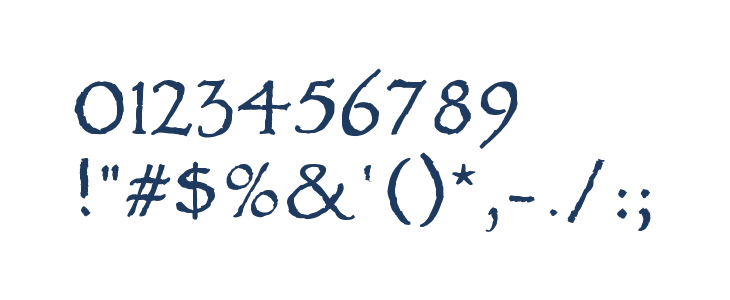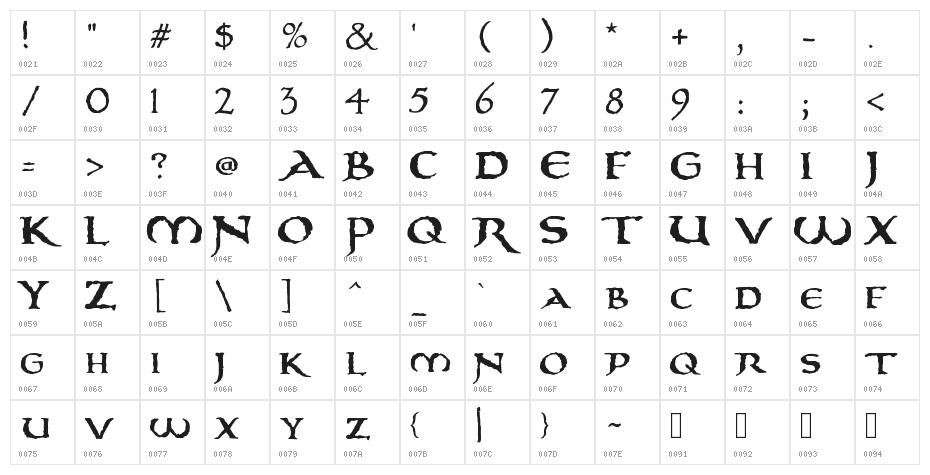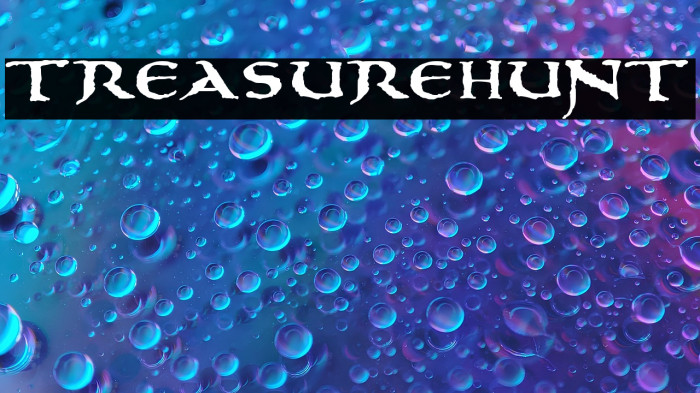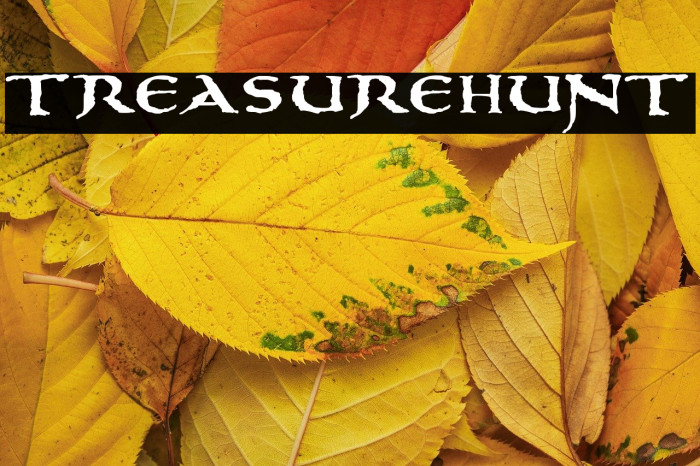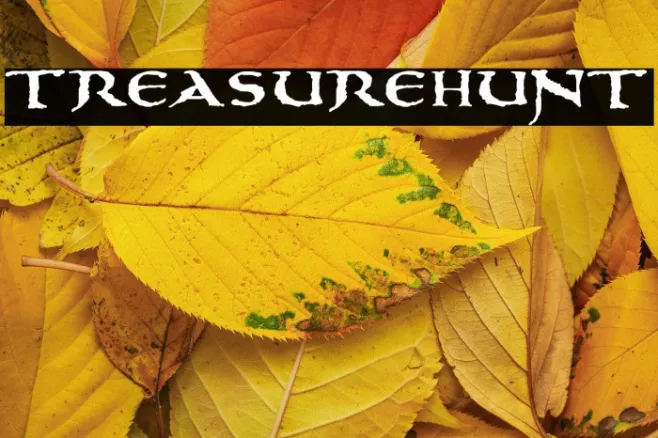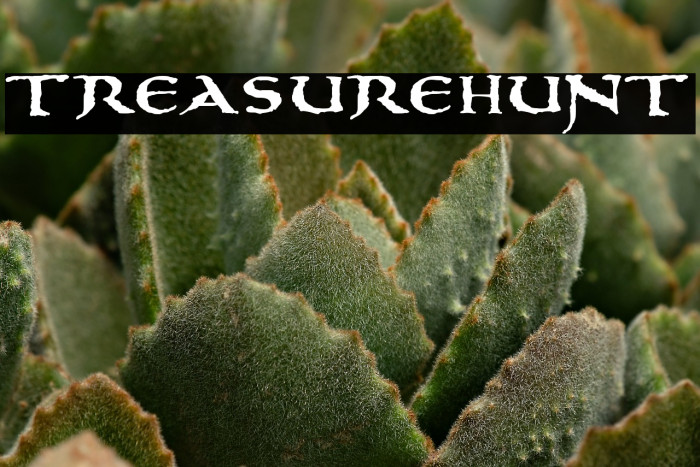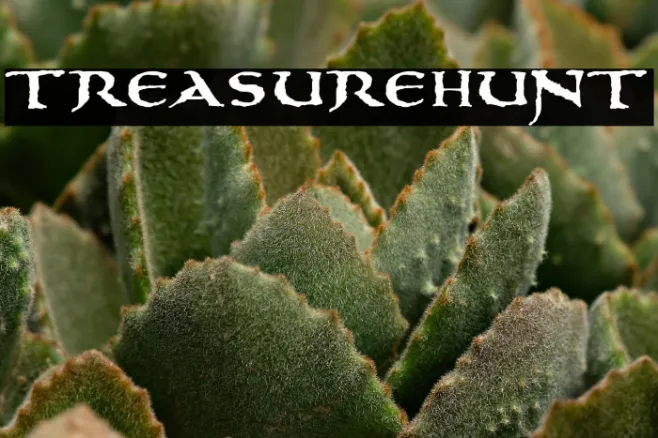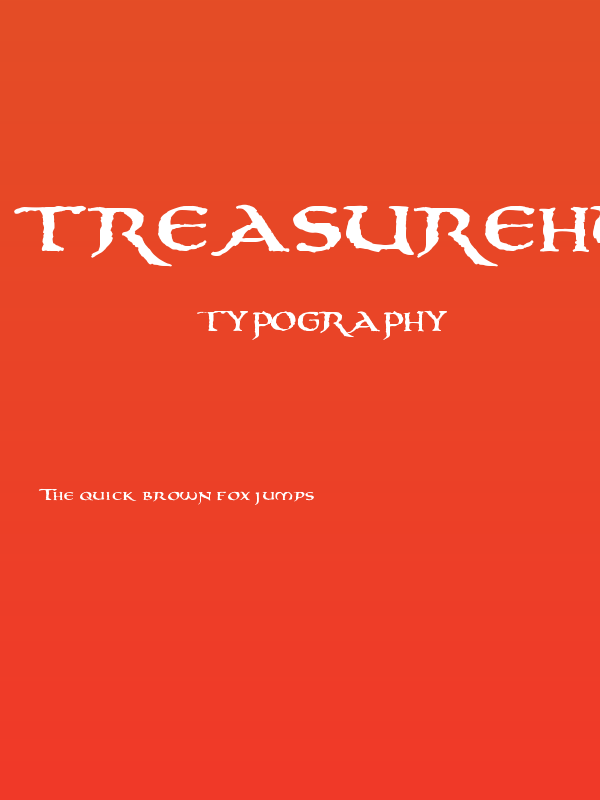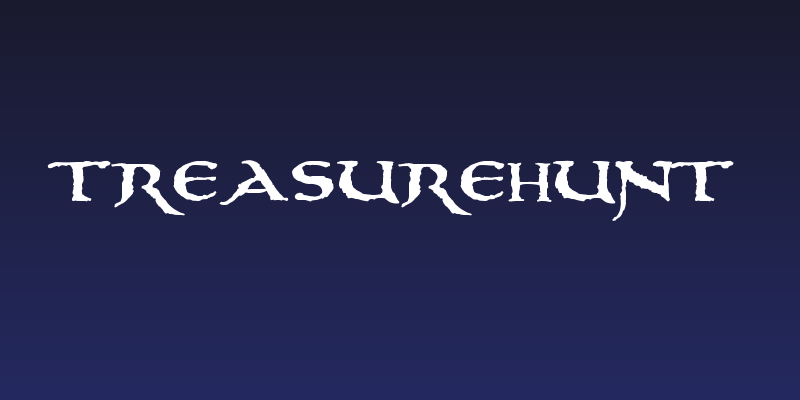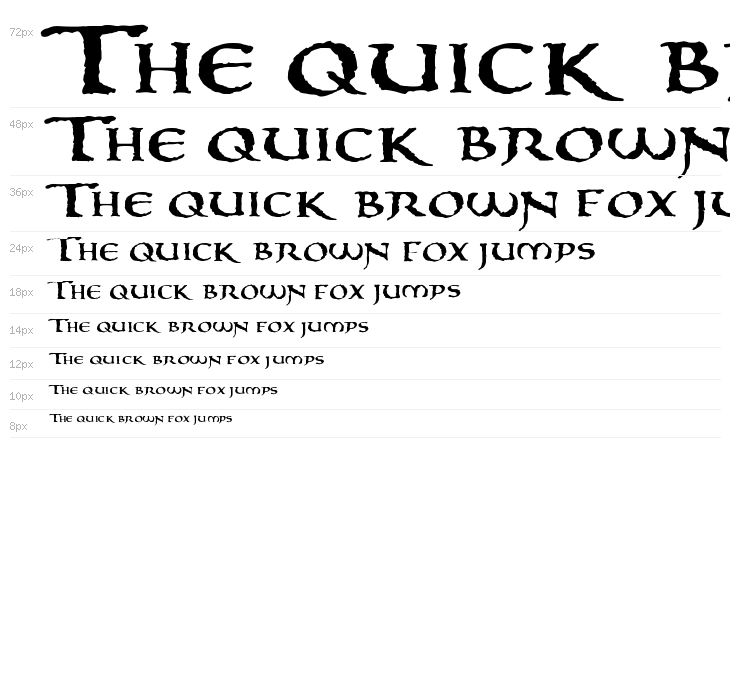
treasurehunt Font
treasurehunt Description
This font features a distinctive, hand-drawn style reminiscent of ancient scripts, with a rugged and textured appearance. The characters are bold and slightly irregular, giving them a unique, organic feel. The uppercase letters are particularly striking, with sharp angles and varying stroke widths that add to the font's dynamic nature. The lowercase letters maintain the same rugged aesthetic, while the numerals and special characters are consistent with the overall style, ensuring a cohesive look. This font's design evokes a sense of history and adventure, making it ideal for projects that require a touch of the exotic or mysterious.